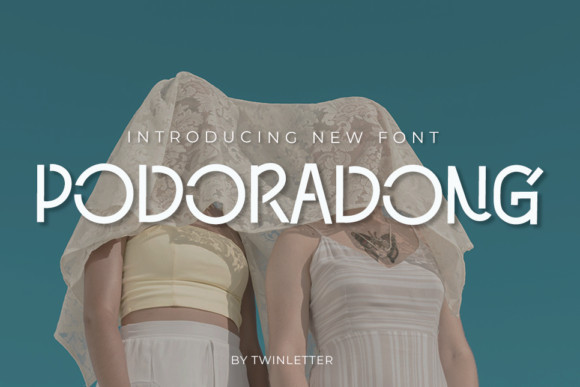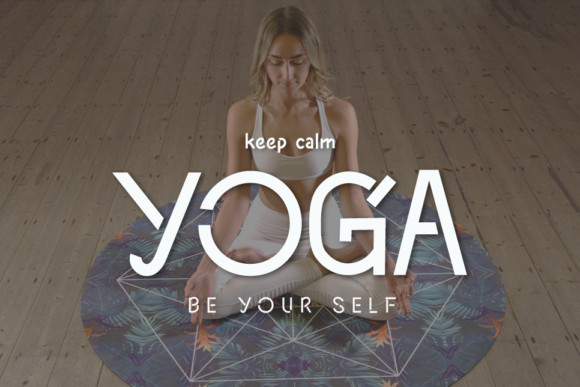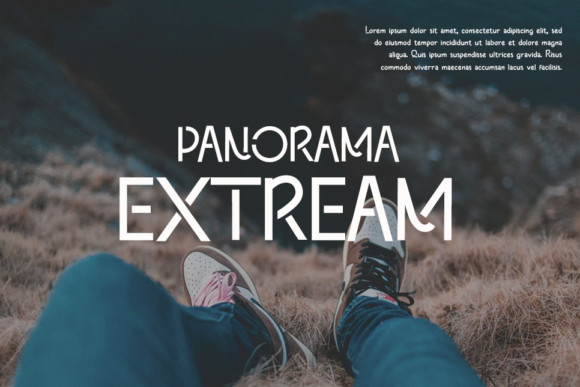
Podoradong Font
Podoradong is a magical display font carefully created with a touch of elegance. This is a beautiful combination of timeless elegance and authentic calligraphy. It features an incredibly classic style, while still keeping a friendly feel. Podoradong is the perfect font for making original and outstanding designs.